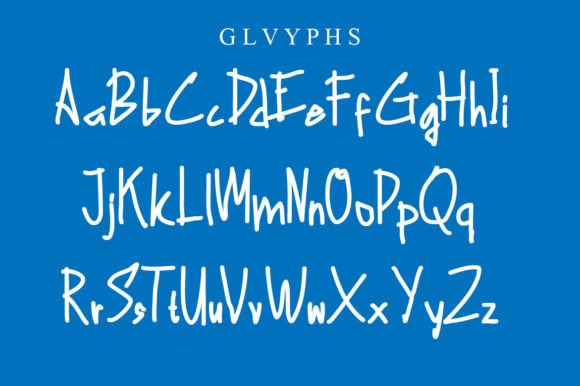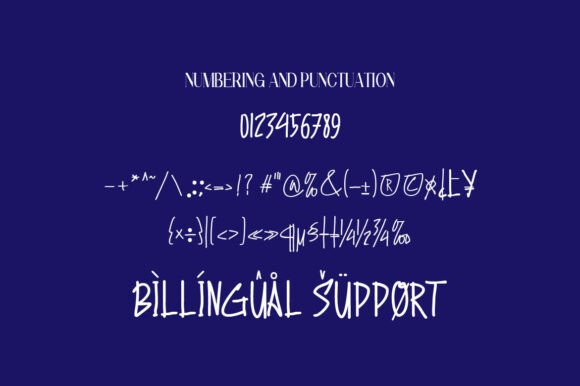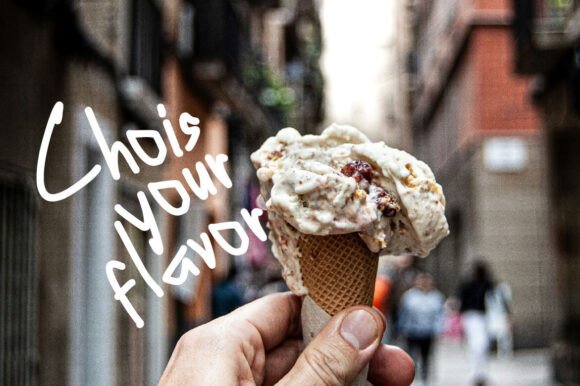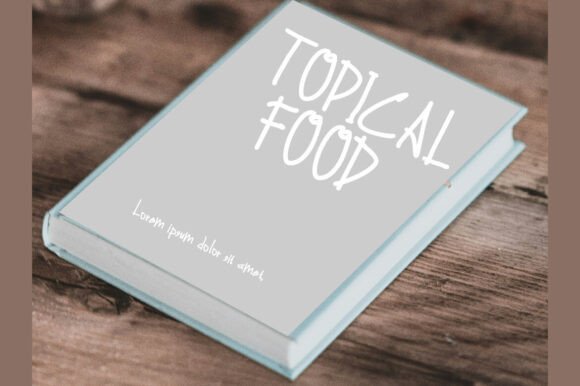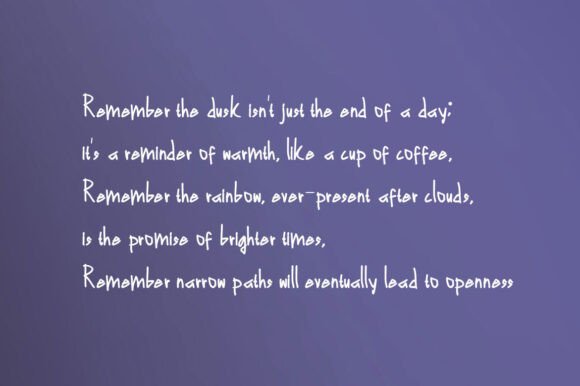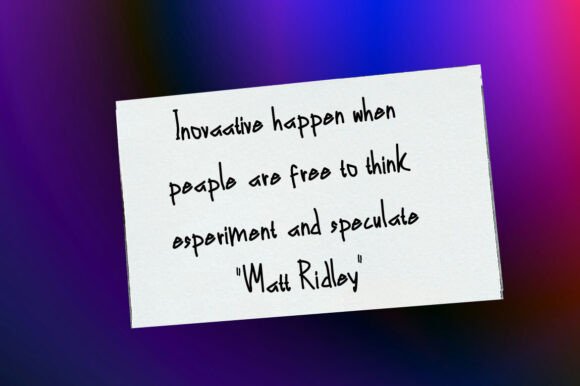
Introducing Colaps: The Epitome of Natural Handwritten Elegance
In the realm of typography, few fonts manage to capture the essence of natural handwritten elegance. However, Colaps, a beautifully crafted handwritten font, stands out as a shining example of authentic charm and heartfelt warmth. Derived from the essence of organic penmanship, Colaps is the perfect companion for designers and crafters seeking to bring an air of genuine connection and authenticity to their creative endeavors.
The Characteristics of Colaps
Colaps boasts flowing strokes and artful characters that make it a unique addition to any design project. Its natural, handwritten aesthetic is reminiscent of a warm, personal letter or a heartfelt note, imbuing your creations with a tangible touch of sincerity. Whether you’re working on a branding project, a website, or a craft, Colaps is sure to illuminate your work with its elegant, organic charm.
Features of Colaps
Colaps comes complete with a host of features that make it an invaluable asset for designers and crafters. These include:
- Extensive Numeral and Punctuation Compatibility: Colaps supports a broad range of numerals and punctuation marks, making it versatile for various design projects, from editorial design to digital content creation.
- Multilingual Support: With comprehensive multilingual support, Colaps is capable of accommodating a diverse array of languages, making it an excellent choice for global brands and multilingual projects.
The Creative Prowess Behind Colaps
Applications of Colaps
Colaps is incredibly versatile and can be applied to a wide range of design projects, including:
- Branding and Logo Design: Colaps can add a personal touch to your brand’s identity, making it more relatable and authentic.
- Website Design: Incorporate Colaps into your website’s typography to create a warm and inviting user experience.
- Stationery and Packaging: Use Colaps for business cards, letterheads, and packaging designs to convey a sense of elegance and sincerity.
- Digital Content Creation: Colaps is perfect for bloggers, social media influencers, and content creators looking to add a personal touch to their digital content.
Why Choose Colaps?
In a world where digital designs often lack a personal touch, Colaps offers a refreshing alternative. By choosing Colaps, you’re opting for a font that:
- Exudes warmth and authenticity
- Supports multiple languages
- Is crafted with attention to detail and a deep understanding of typographic excellence
Colaps is more than just a font; it’s an embodiment of natural handwritten elegance. Its unique blend of flowing strokes, artful characters, and authentic charm makes it an invaluable asset for designers and crafters seeking to bring a touch of sincerity to their creations. With its comprehensive features, versatility, and the creative prowess of Gunaloecraft, Colaps is poised to become a favorite among typography enthusiasts. Whether you’re working on a branding project, website design, or craft, Colaps is sure to illuminate your work with its warm, organic charm.